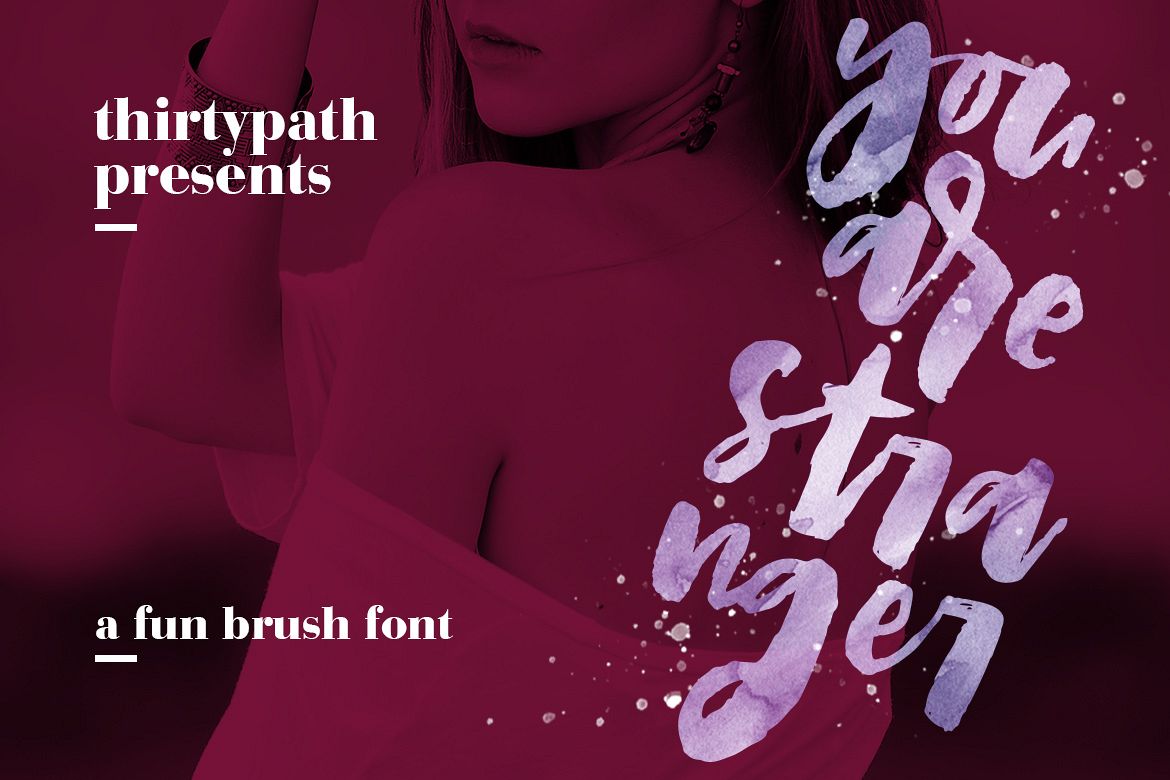
You Are Stranger Font
Hello world..!! this is You Are Stranger typeface, simple and easy to create awesome lettering, just type your words and then you will immediately see the great results.
Perfect for: using in ink or watercolor based designs or on its own as bold hand-brushed lettering.
Comes with upper and lowercase characters, large set of punctuation glyphs, numerals, and supports international languages. Can be used for various purposes. such as headings, logos, wedding invitation, t-shirt, letterhead, signage, label, news, posters, badges etc.